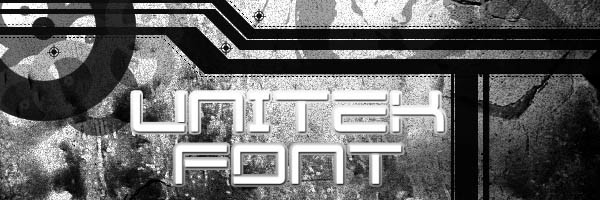
only a demo...my first font so it has some unfinished moments...no numerals, no symbols...and space between lines...but i like the conceptRelated content
Great tech font! Just... Not what I am lokking for
Sweet font, I been toying with it for a while now- checking out the lettering and stuff. Works well with some of the work I do for college. Top notch man.
No problem- I cant wait to see the finished version. I happened to use the font in a small piece of work I did as an deviantID- check it out in my gallery if your interested.